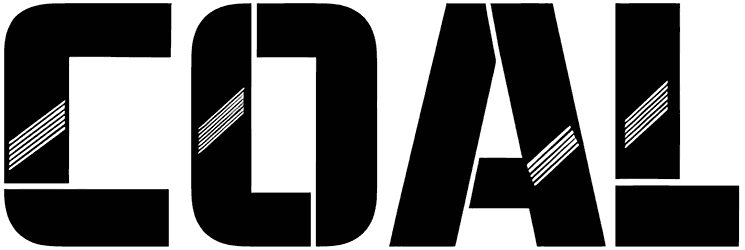
Coal Font
Let’s add a bold and strong mood to your creative design with this block font and hook a lot of people. The Coal font has a metal and modern style, but it doesn’t support lowercase letters, numbers, and punctuation marks…
Let’s add a bold and strong mood to your creative design with this block font and hook a lot of people. The Coal font has a metal and modern style, but it doesn’t support lowercase letters, numbers, and punctuation marks. Benefit from this military font to adorn your war movie poster or other projects and become memorable.